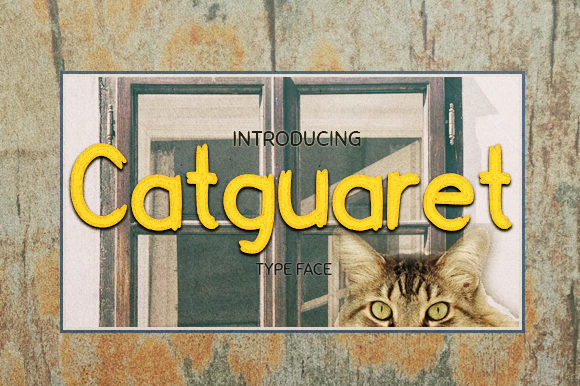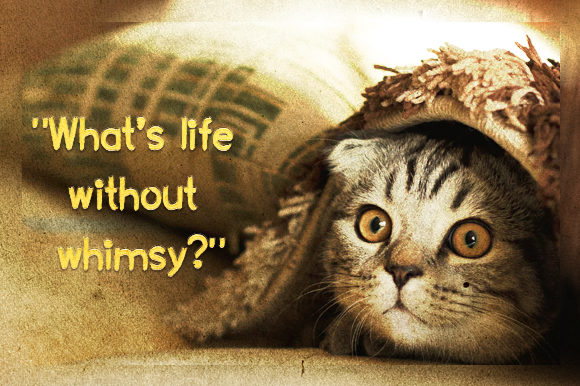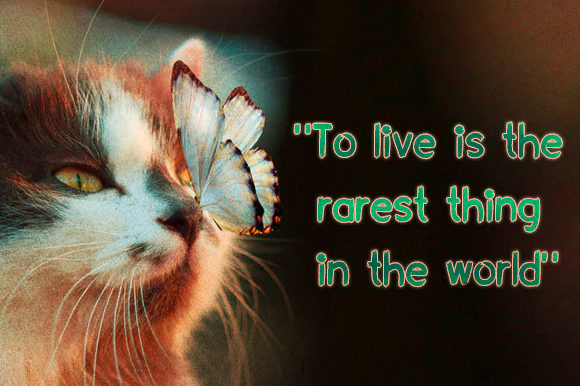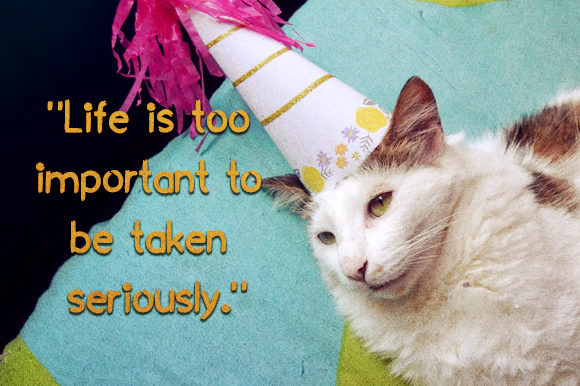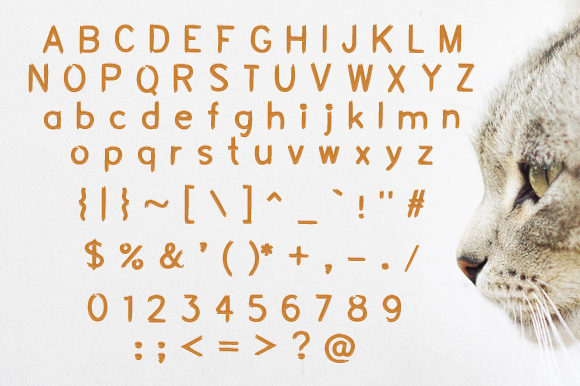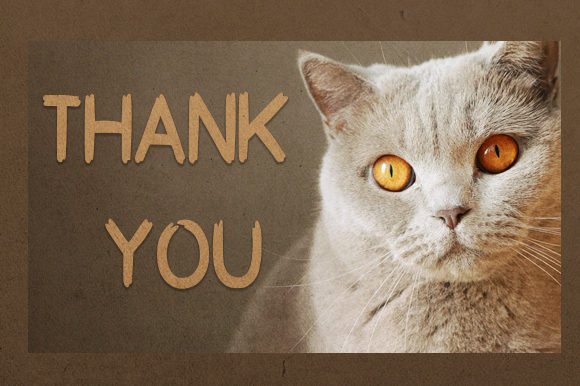
Sans Serif Fonts Catguaret Font 0 177 FacebookTwitterPinterestWhatsApp Catguaret Font 1 of 6 About Catguaret Font Catguaret is a unique sans serif with a friendly and playful look. It’s the perfect font for delivering any message with charm. DOWNLOAD NOW